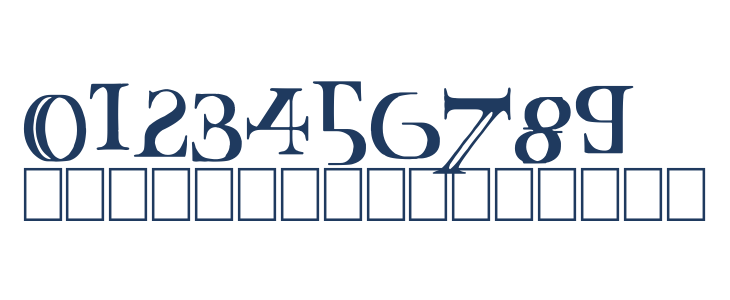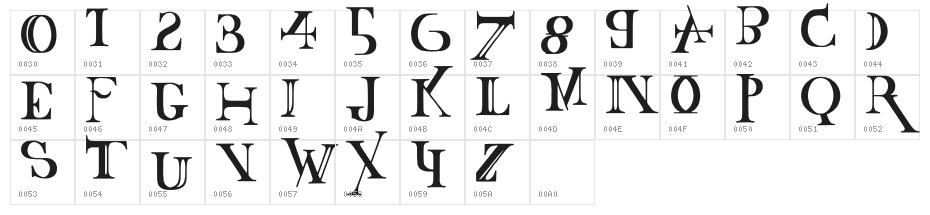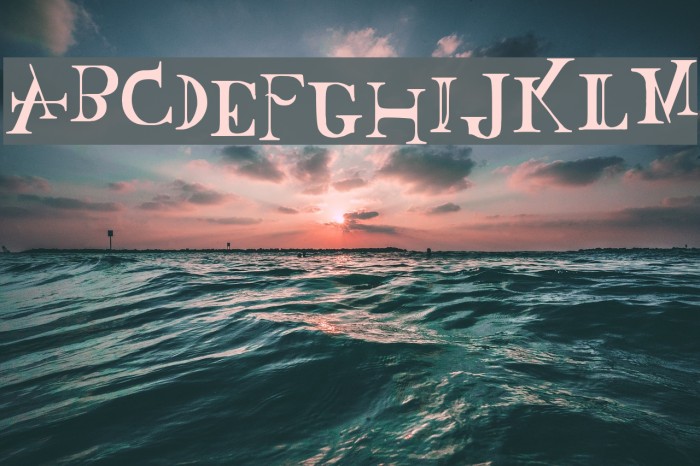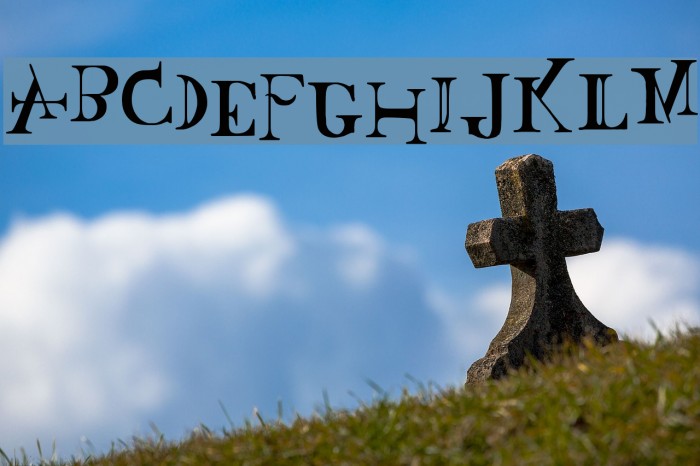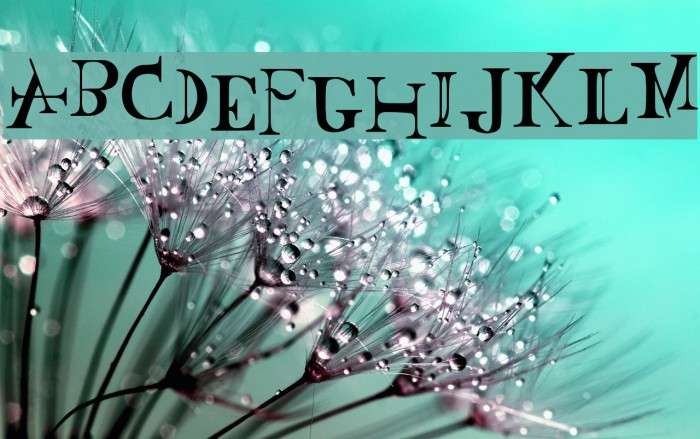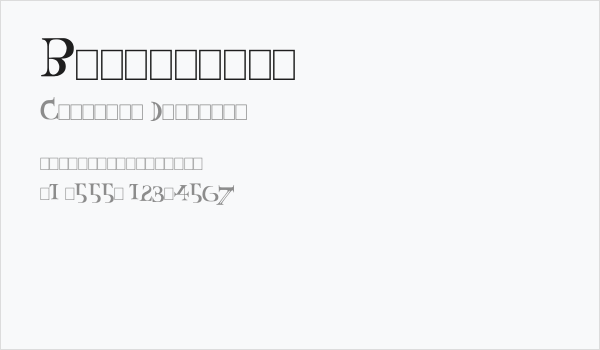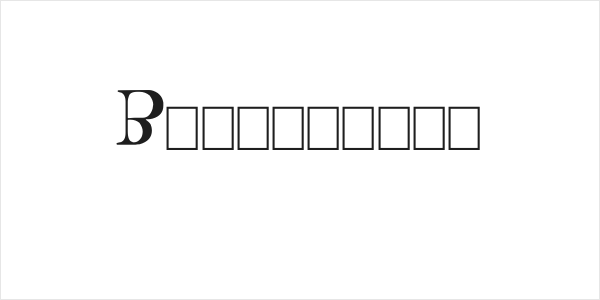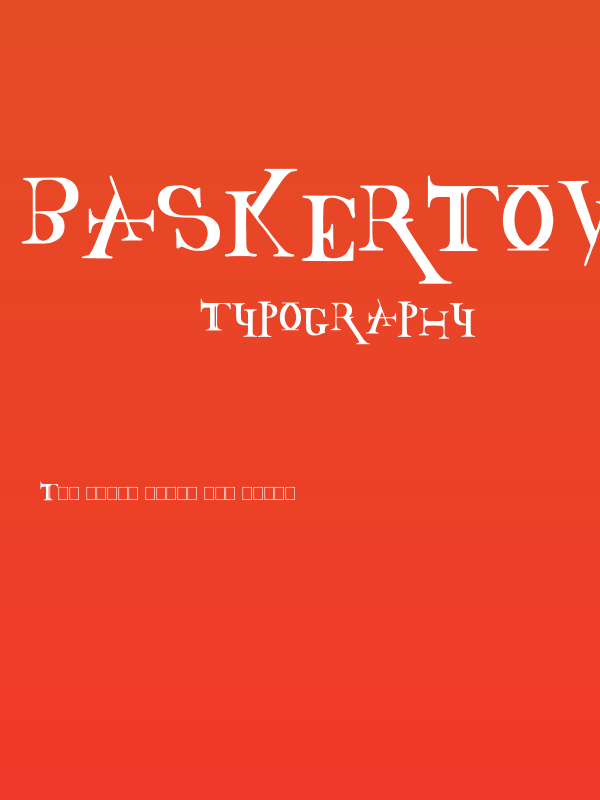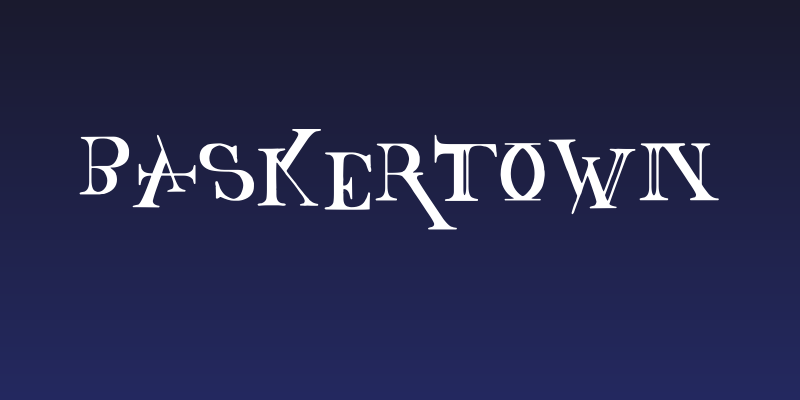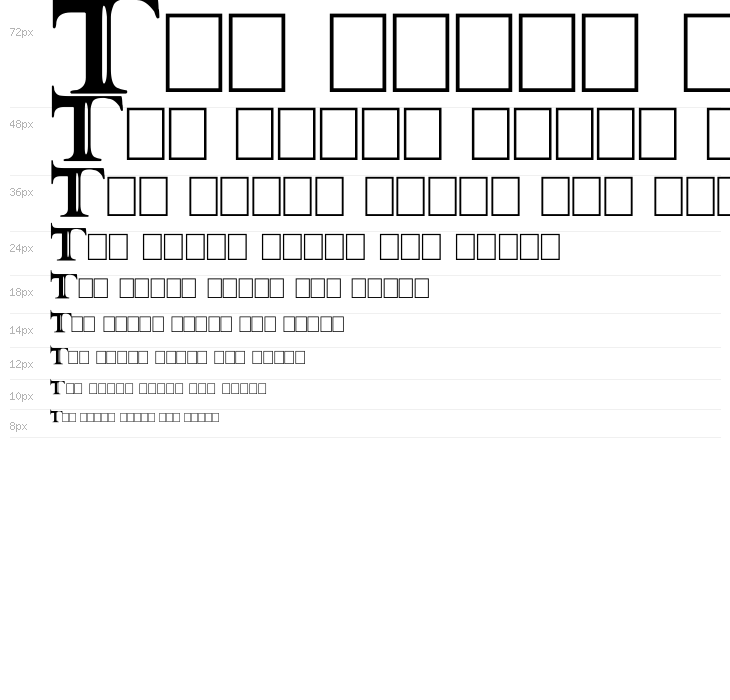
Baskertown Font
Baskertown Description
This font features a unique and artistic style with a blend of classic and modern elements. The uppercase letters are characterized by sharp, angular serifs and distinctive, bold strokes that create a dramatic and eye-catching appearance. The lowercase letters maintain a consistent style, with a slightly more subdued flair, yet still exhibit the same boldness and angularity. The numerals are equally striking, with a consistent weight and style that complements the alphabet. Special characters are designed to match the overall aesthetic, ensuring a cohesive look across all text. This font's high contrast in stroke thickness adds to its dramatic and impactful presence, making it ideal for projects that require a strong visual statement.
| Proposed Projects | Ideal for branding, poster design, book covers, and any project requiring a strong visual impact. |